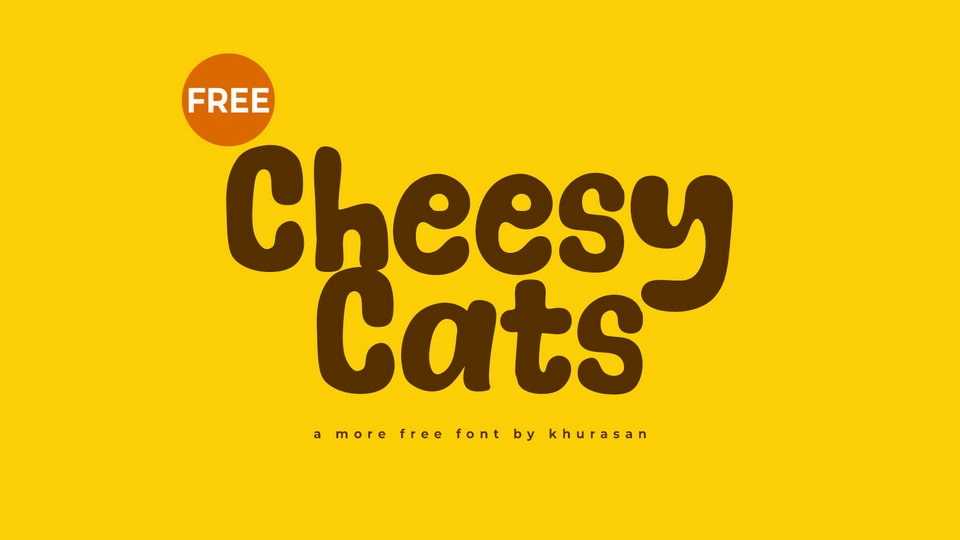
Download Cheesy Cats font, a joyful and playful handwritten typeface that radiates cheerfulness and creativity. It features lively, flowing letterforms with whimsical curves and charming imperfections.